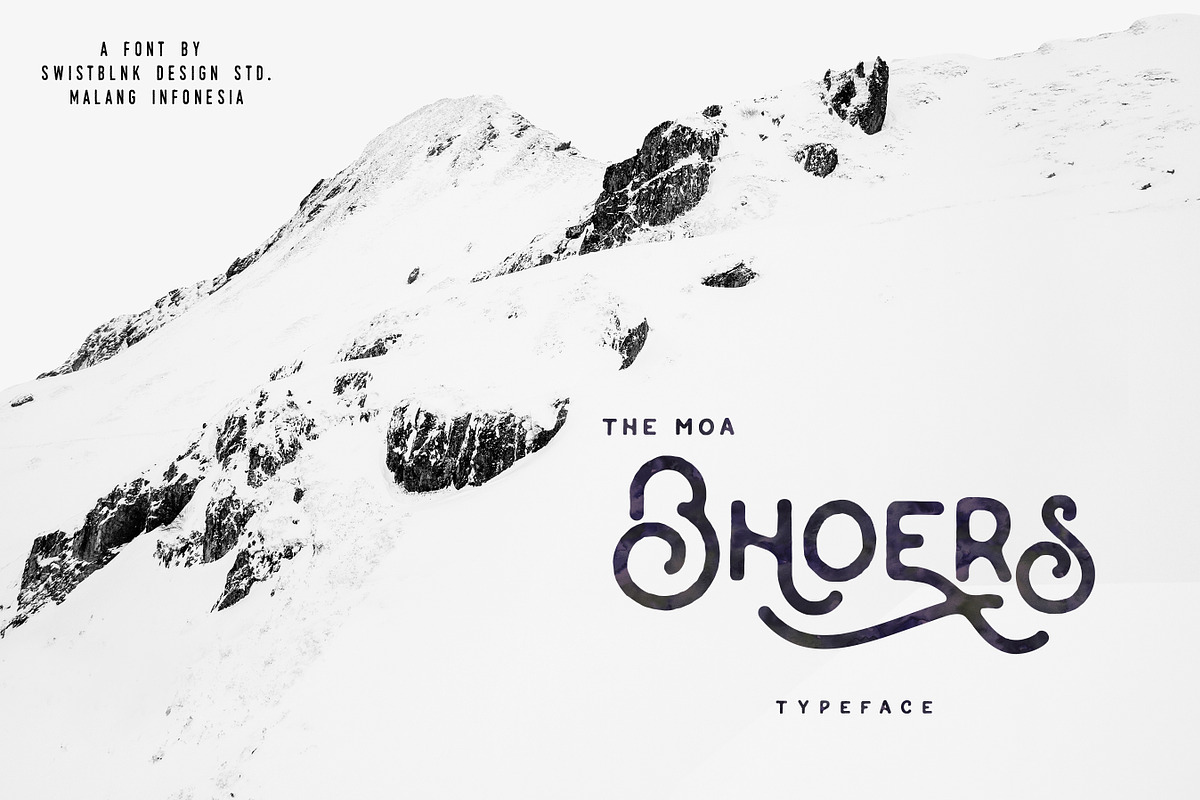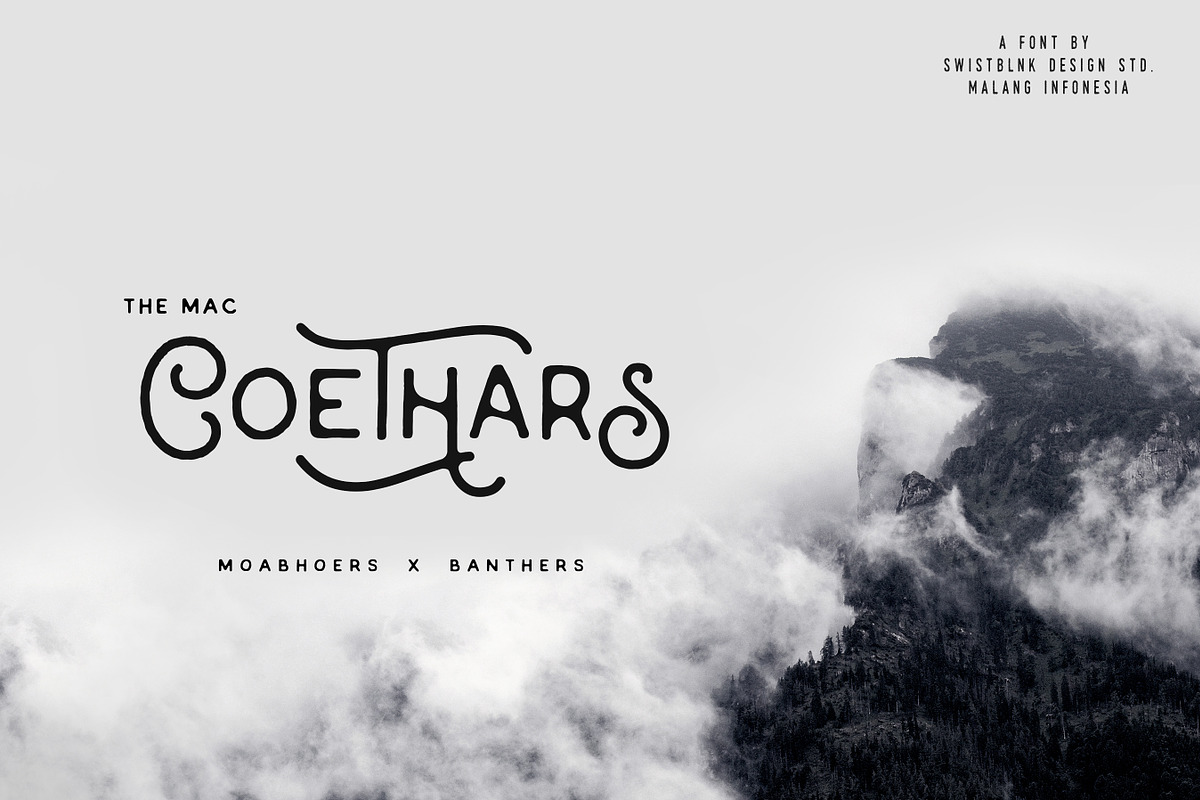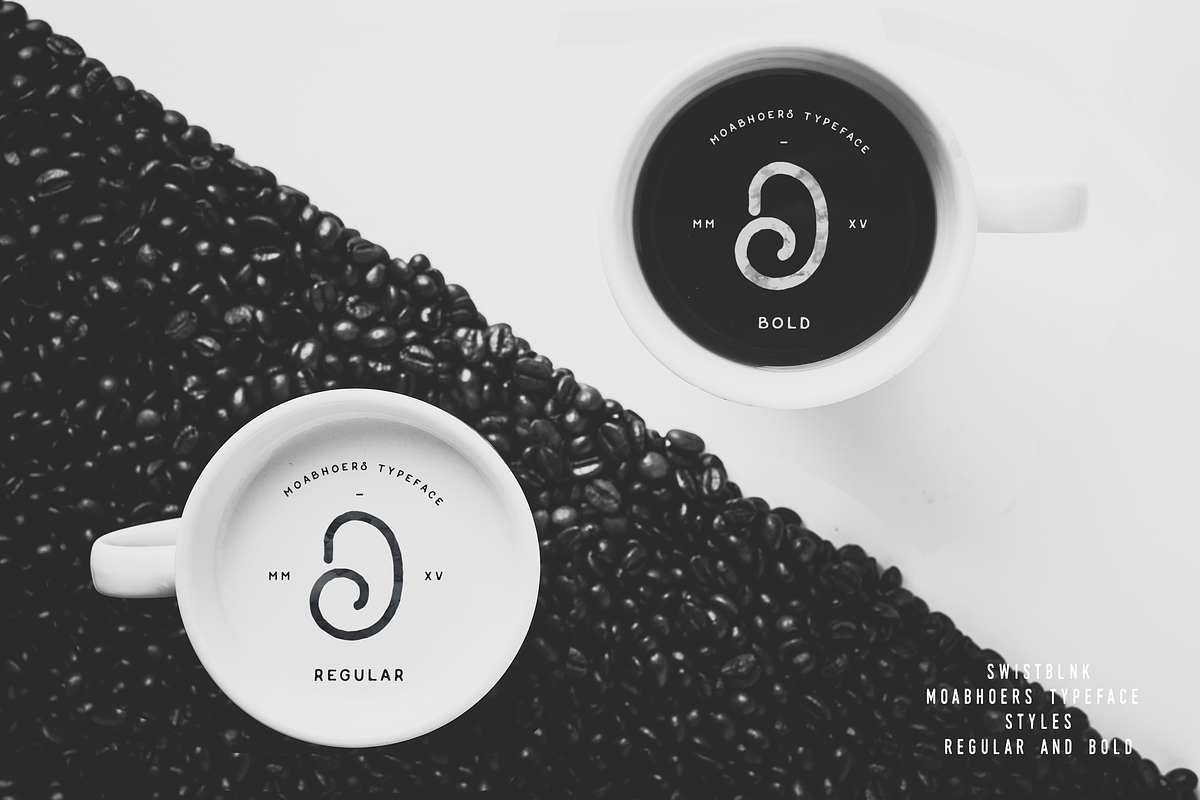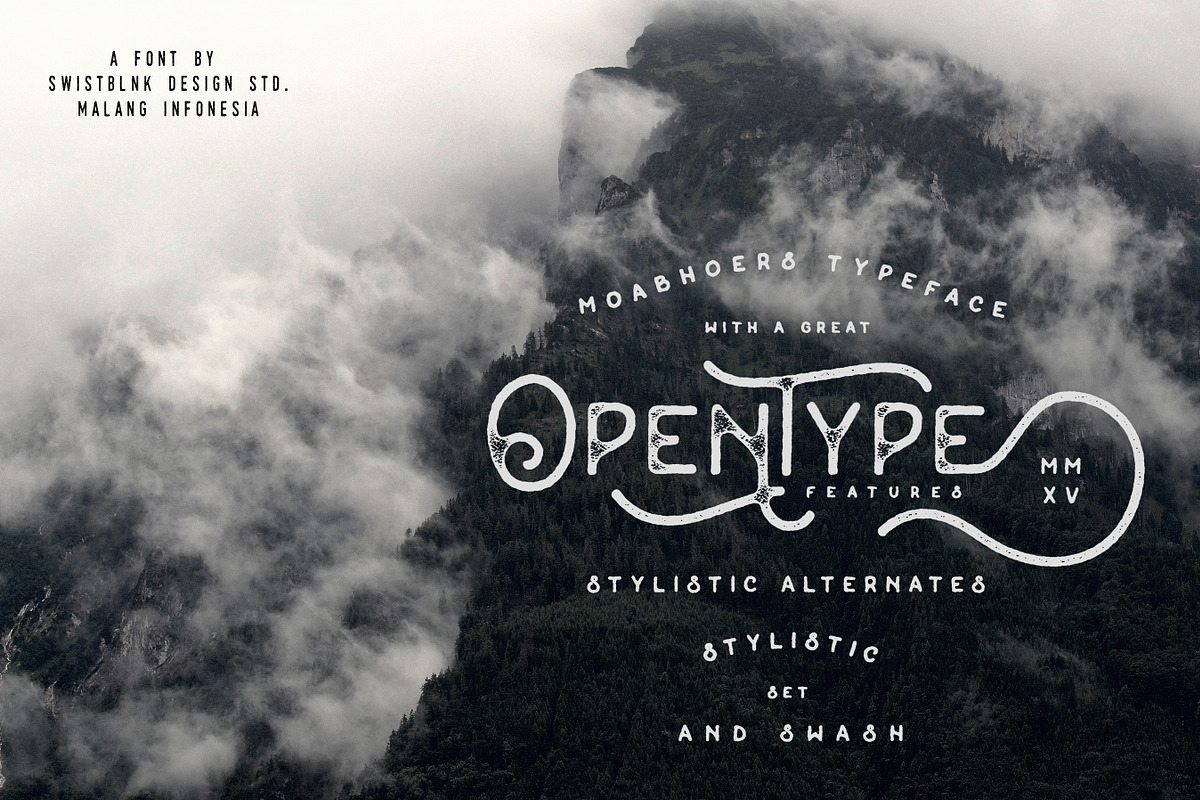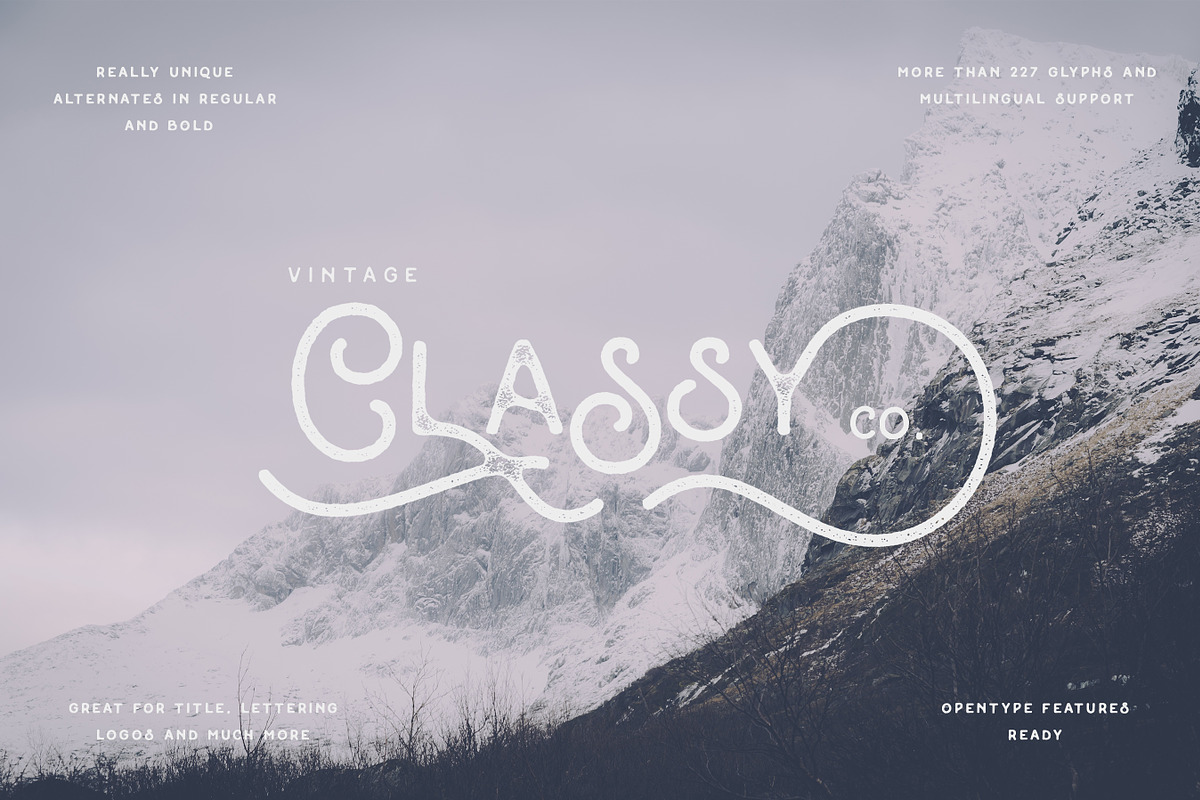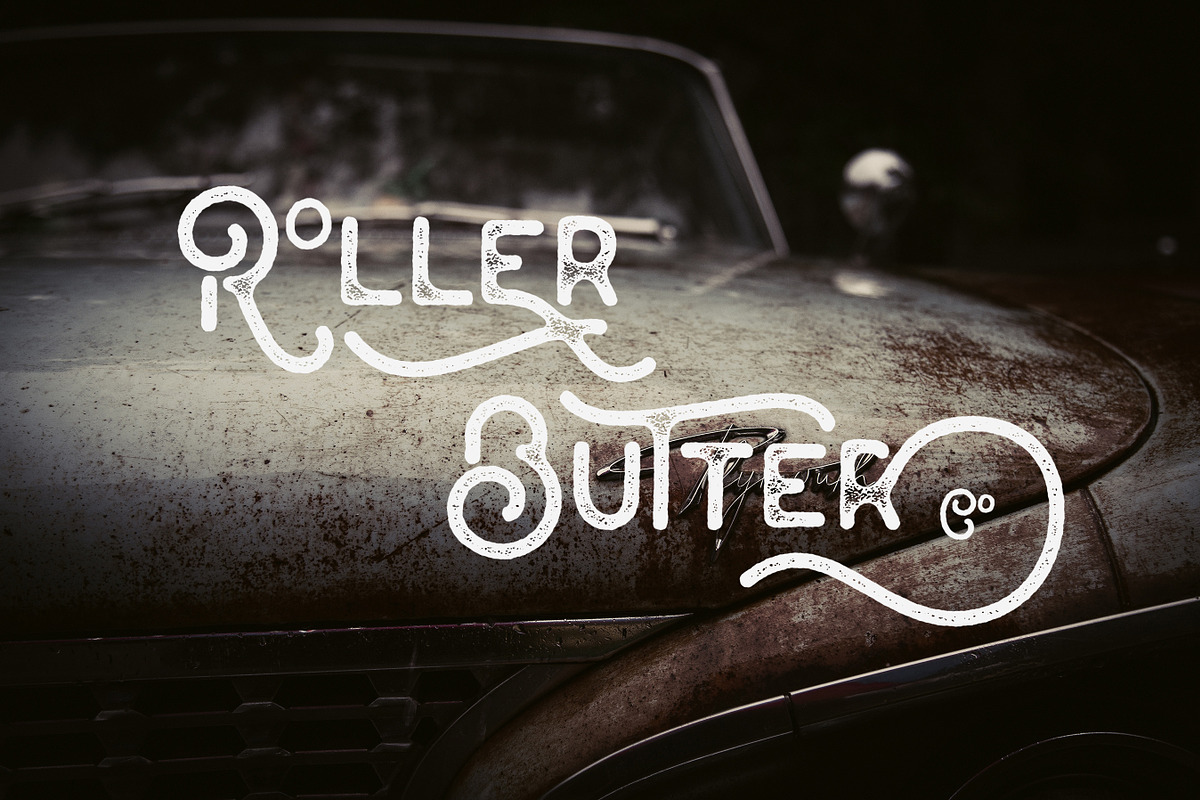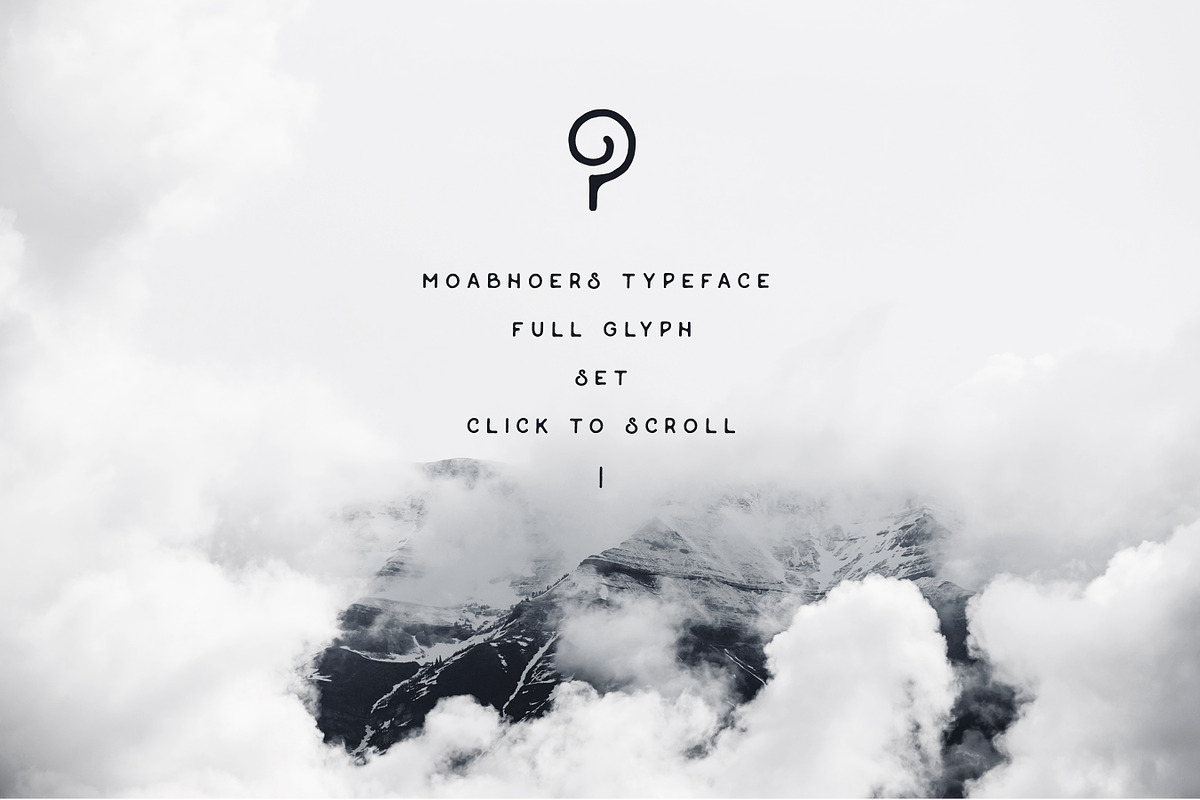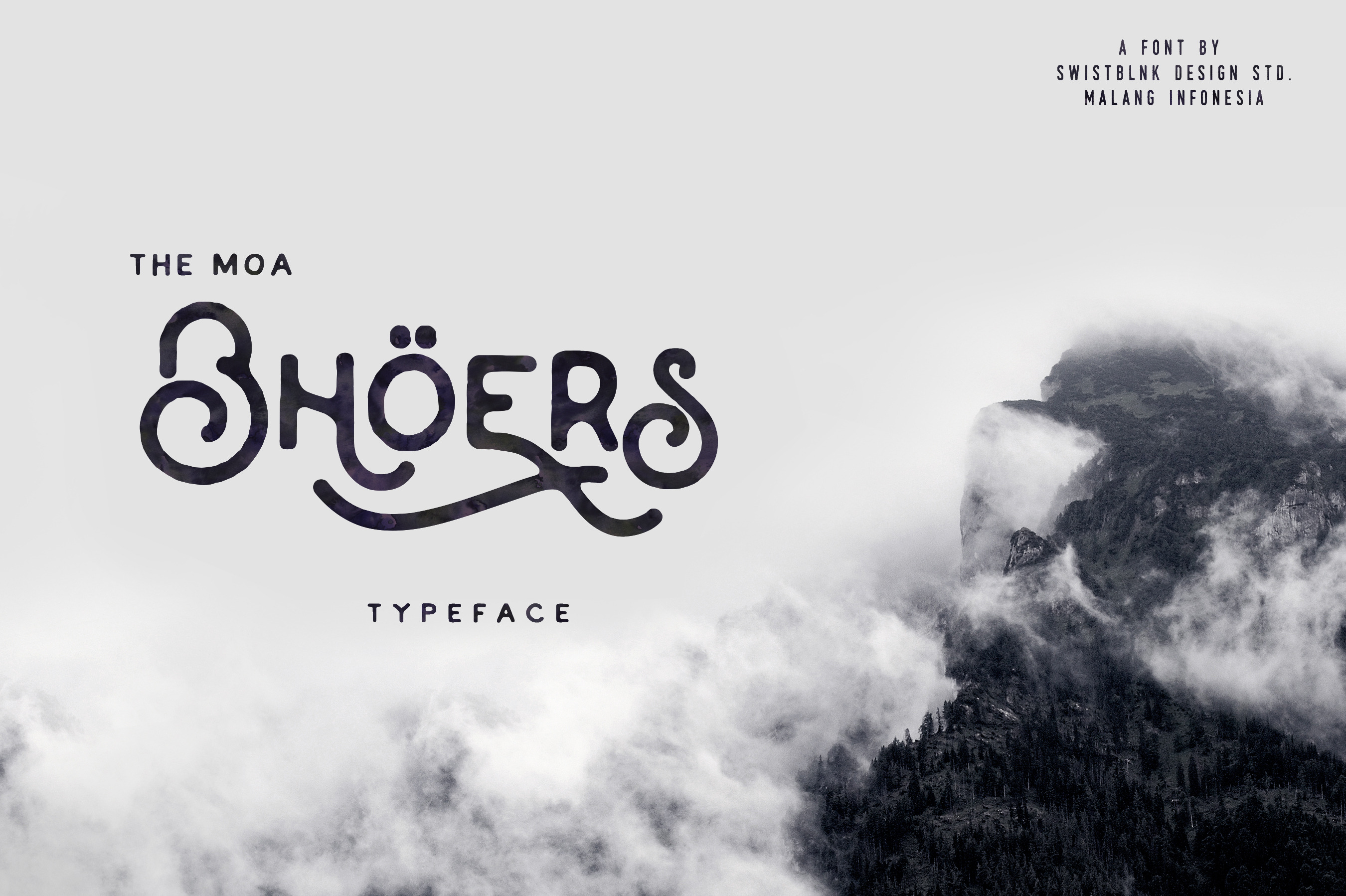
Moabhoers Typeface
Moabhoers is handmade modern vintage display typefaces, which is combining the style of classic typography with an modern handlettering style.
Moabhoers Features :
There are more than 227 glyphs in the font including Stylistic sets, Swash etc. OpenType features with Stylistic Alternates, Swash in some characters that allows you to mix and match pairs of letters to fit your design. To access the alternate glyphs, you need a program that supports OpenType features such as Adobe Illustrator CS and Adobe Indesign.